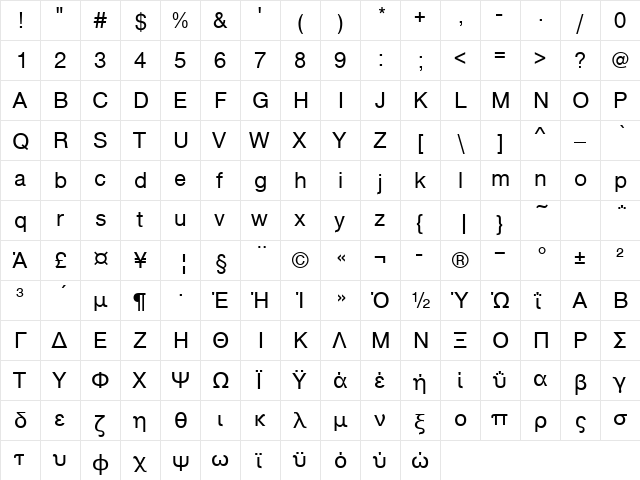
NimbusSanNo5TGR Regular
Design Context for NimbusSanNo5TGR Typeface
NimbusSanNo5TGR is a composed and adaptable typeface that performs quietly and consistently across a wide range of design contexts.